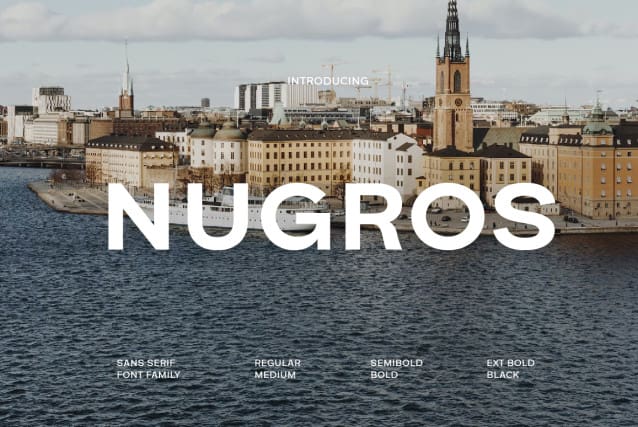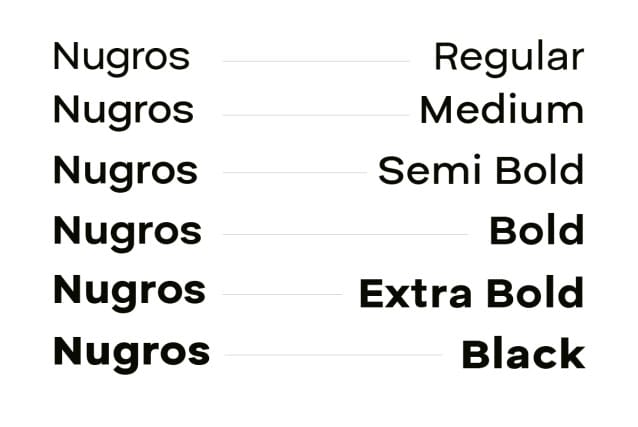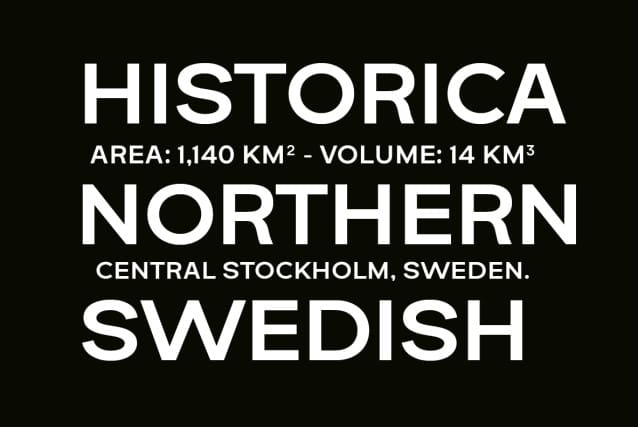
Nugros Font Family
Nugros Font Family is a modern typeface that is simple and elegant in design. This font is suitable for use in formal designs, such as logo designs, websites, brochures, or pamphlets. The typefaces have easy-to-read clarity with a professional feel to the design.
Nugros Sans Serif gives a luxurious and confident impression, making it suitable for use as the main element in branding designs. It is also suitable for use in various types of designs because of its flexibility.